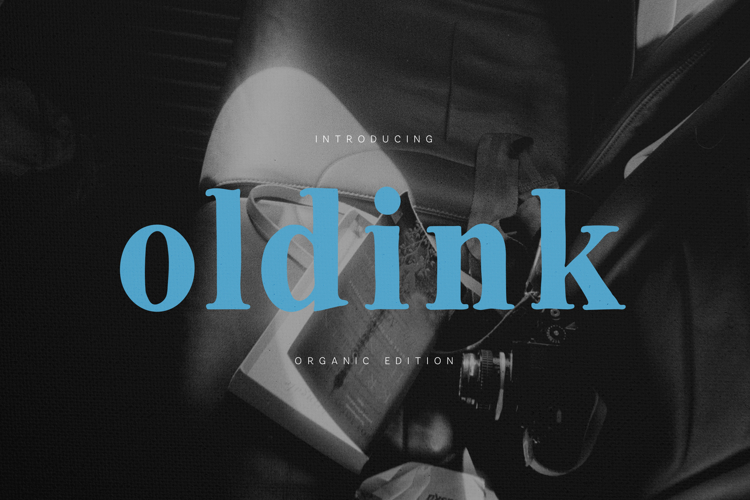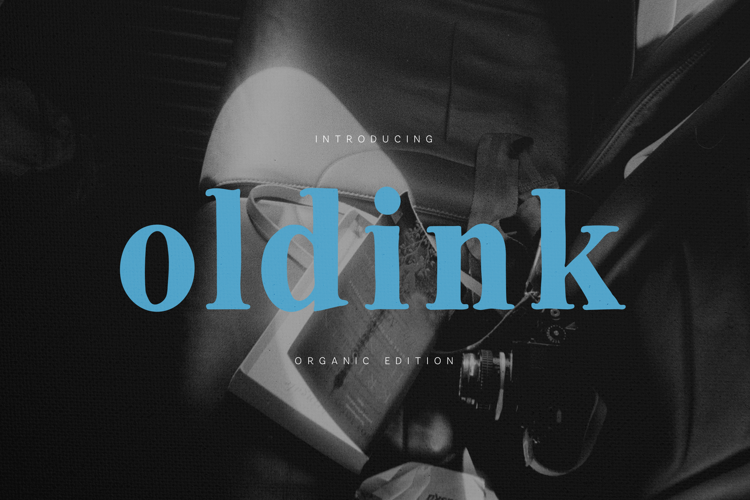
Oldink Organic Serif Font
Oldink is an organic serif typeface that blends classic typography with subtle handcrafted imperfections. Inspired by traditional printing aesthetics, the font features soft edges, natural stroke variations, and a slightly textured appearance that gives every letter a warm and authentic personality.
The design balances elegance and character, making Oldink perfect for projects that need a refined but human touch. Its serif structure provides excellent readability while the organic details introduce a distinctive handcrafted feel.
Oldink works beautifully across a wide range of creative applications, including branding, editorial layouts, packaging design, posters, and modern visual identities.
With full uppercase and lowercase characters, numerals, punctuation, and extended multilingual support, the typeface is suitable for both print and digital design projects.
Oldink combines classic serif elegance with organic personality, making it a versatile addition to any designer’s font library.